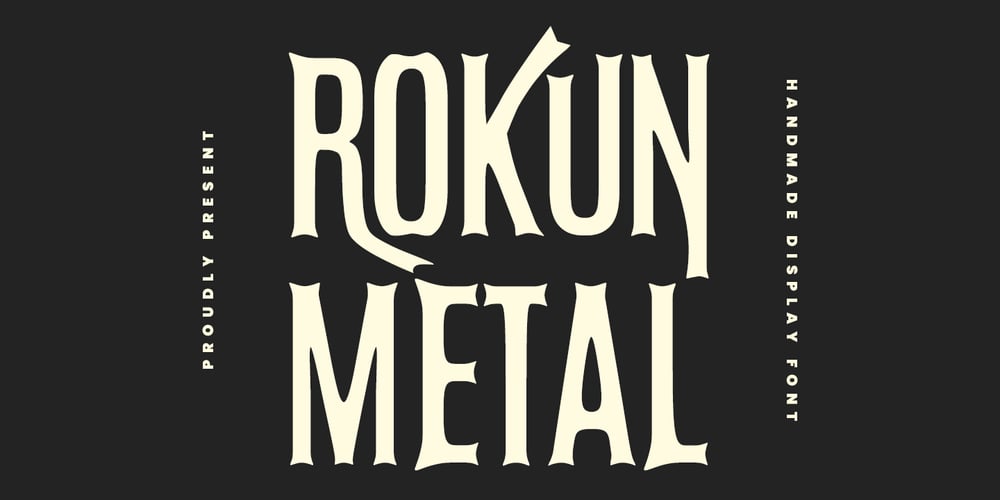
MC Rokun Metal Font Family was designed by Gilang Maulana and published by Maulana Creative. MC Rokun Metal contains 1 styles and family package options. Rokun Metal is a casual handwritten sans display font. With bold stroke, fun character with a bit of alternates. To give you an extra creative work. Rokun Metal font support multilingual language. This font is good for logo design, Social media, Movie Titles, Books Titles, a short text even a long text letter and good for your secondary text font with sans or serif. Make a stunning work with Rokun Metal font.Cheers,Maulana Creative